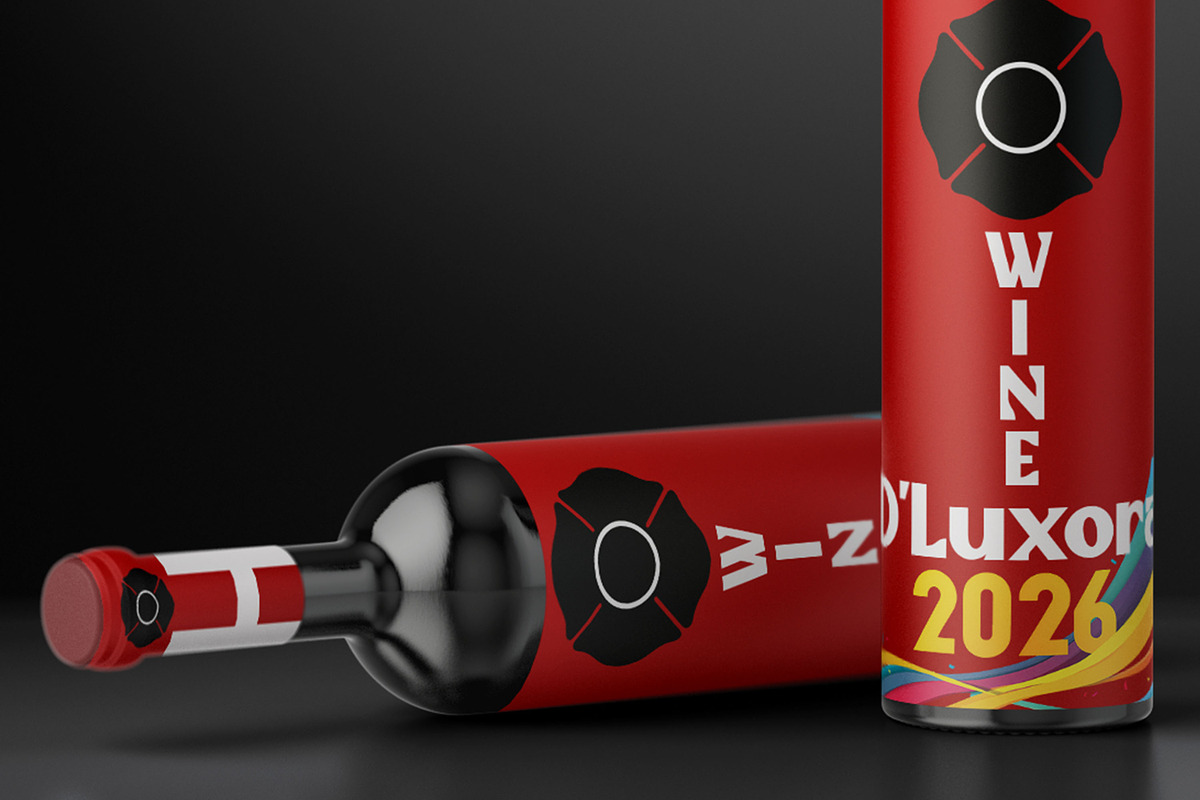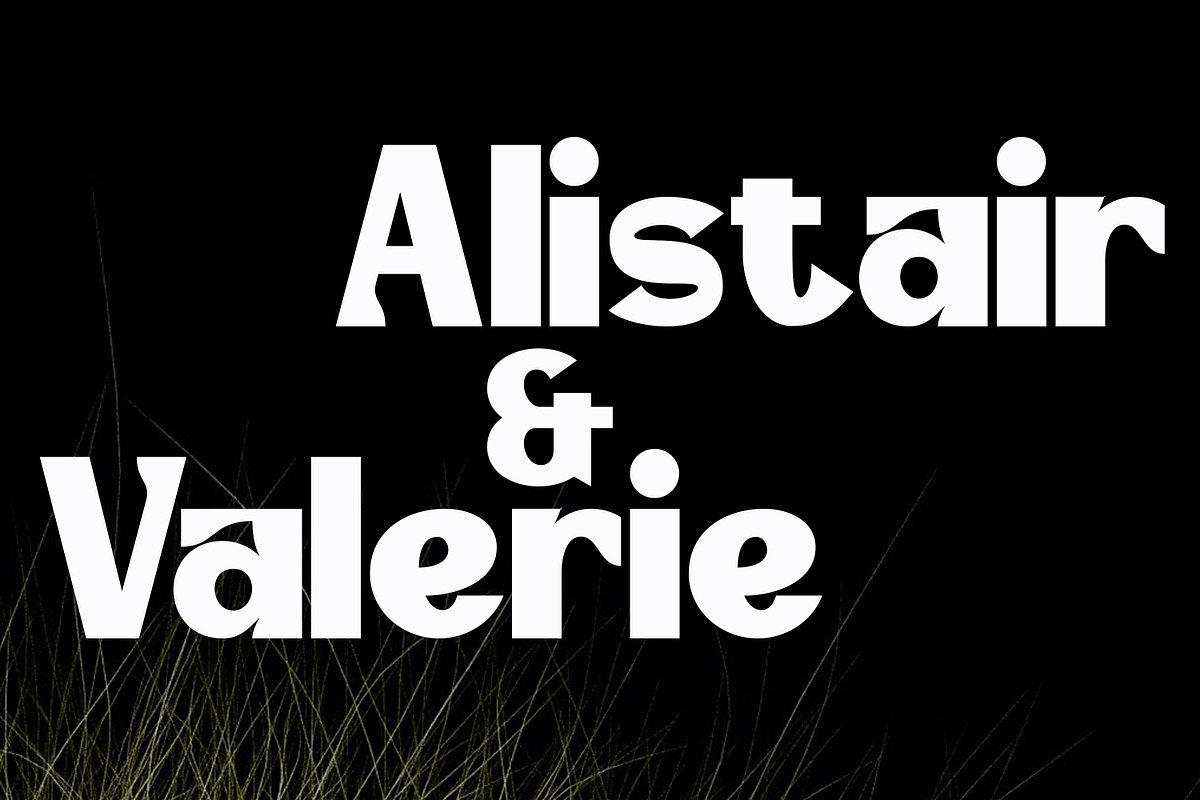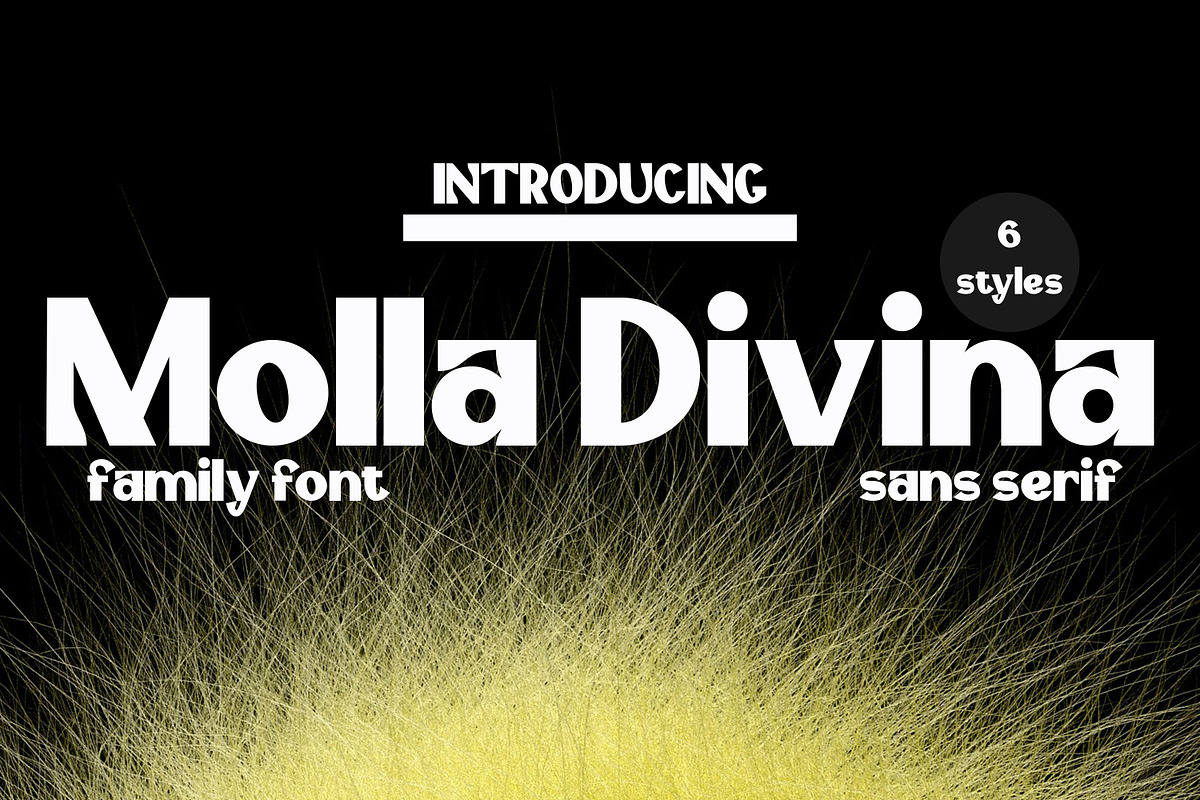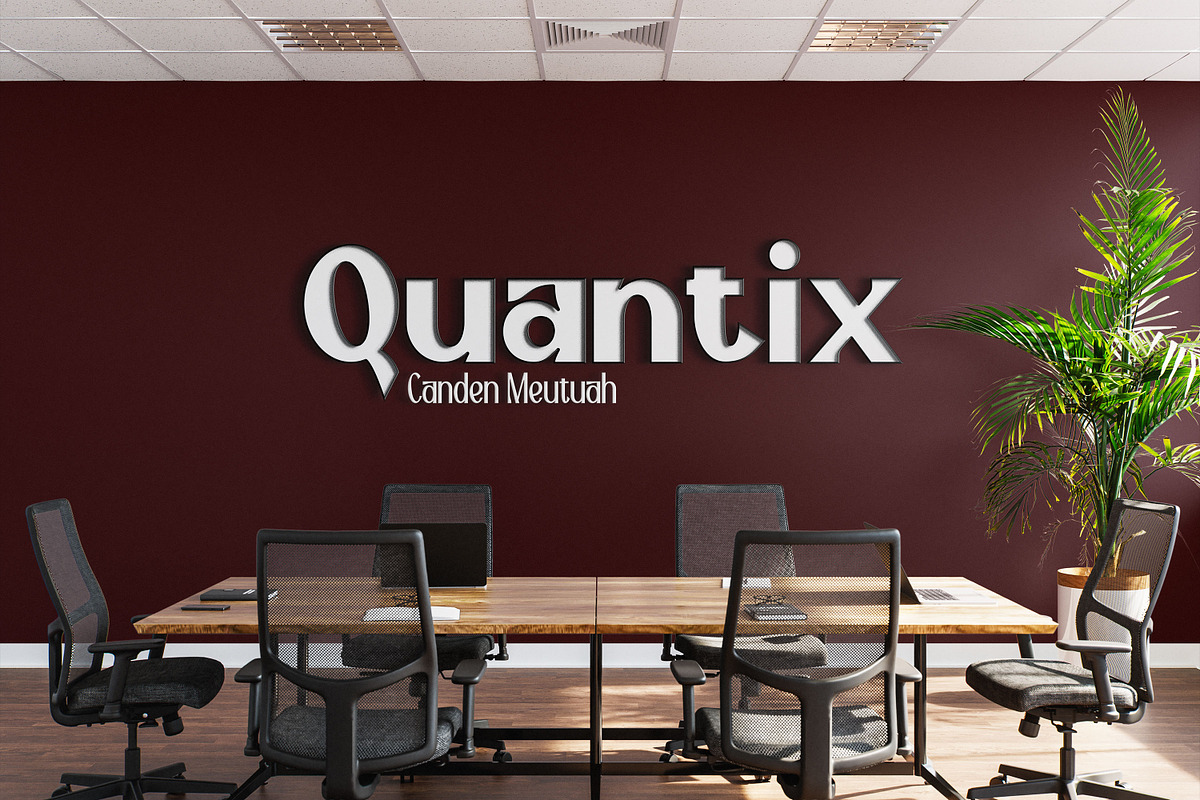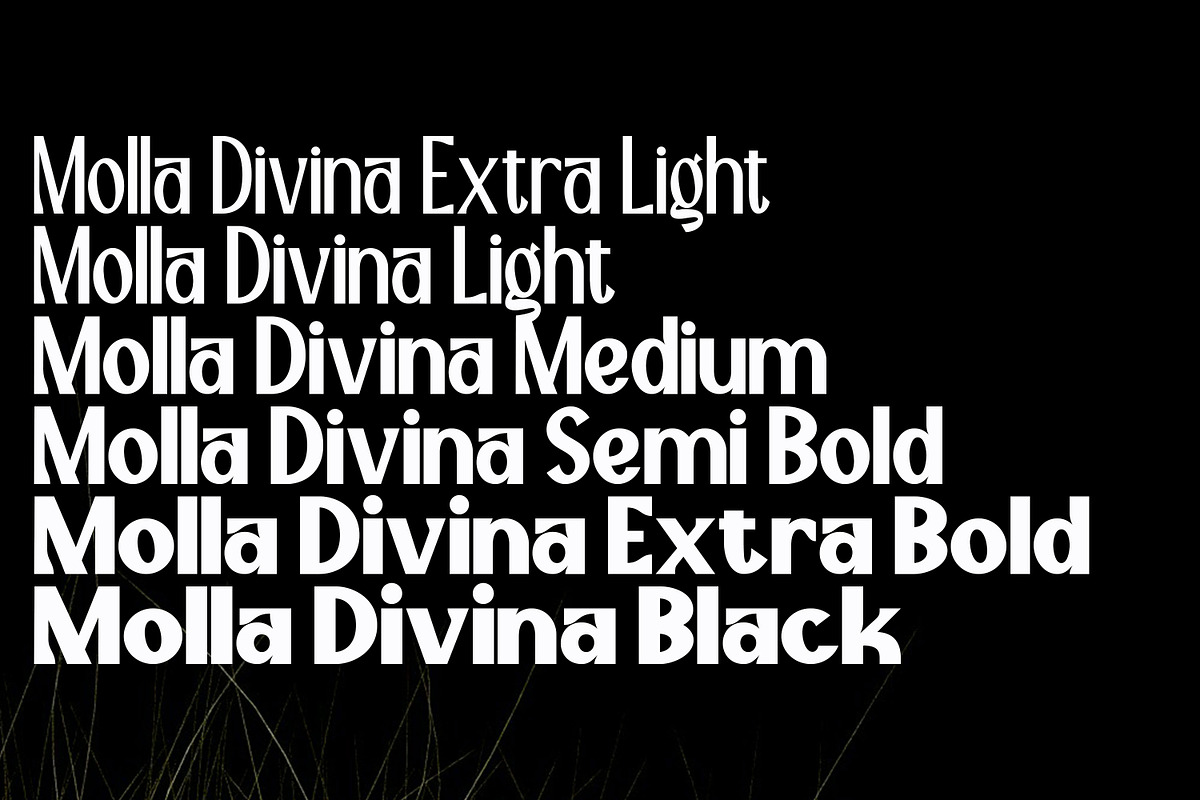
Molla Divina
Lavache is a bold and stylish condensed sans serif font family, blending retro aesthetics with modern minimalism. Designed with uppercase and lowercase characters, Lavache features bold proportions, clean lines, and bold curves, giving your designs a bold personality.
This font is perfect for posters, logo designs, editorial titles, album covers, fashion branding, and display titles, capturing attention with its distinctive touch.